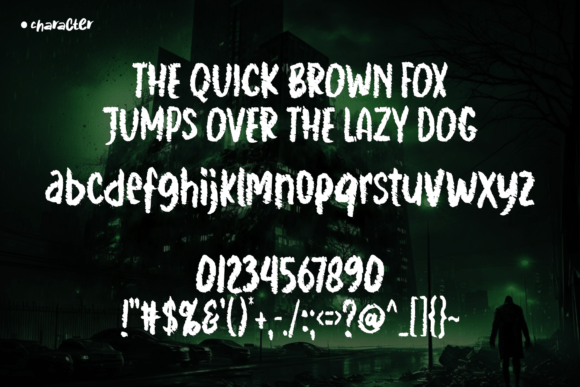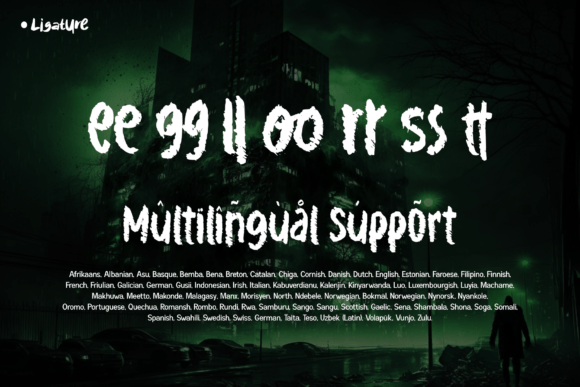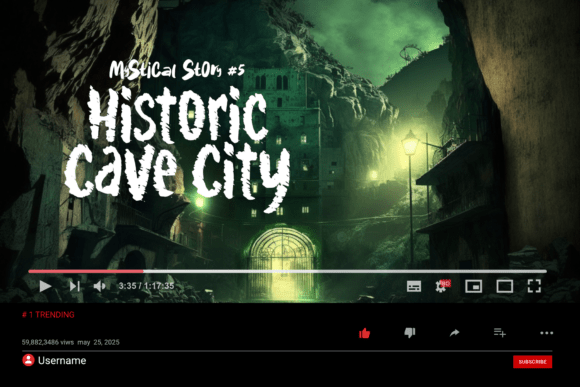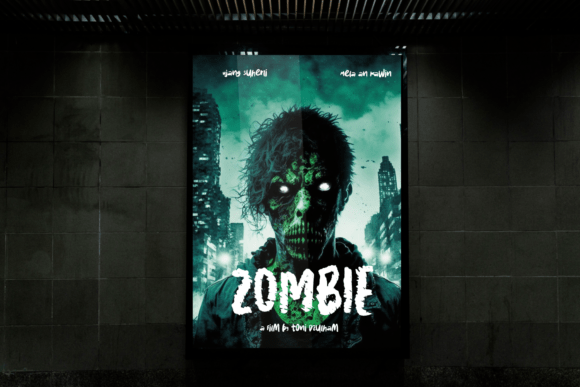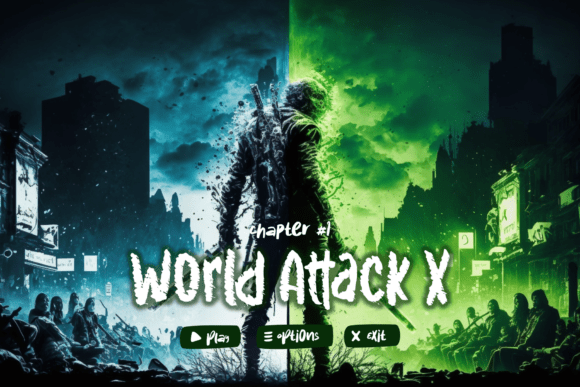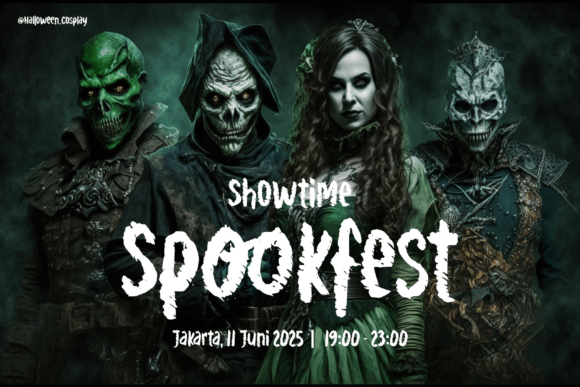
Step into the Abyss of Fear with the Crazy Joker Font
Have you ever sat in front of a blank page, staring blankly at your computer screen, waiting for inspiration to strike? That’s where the magic happens. For designers, finding the perfect font to capture the essence of a project can be a daunting task, but what if I told you there’s a font that can transport your audience into a world of fear and madness?
Enter the Crazy Joker Font, a hauntingly beautiful typeface that embodies the essence of horror. With its hand-drawn, irregular lines and chaotic details, this font is perfect for designers who want to create a striking horror atmosphere. Whether you’re working on a film poster, book cover, or video game title, the Crazy Joker Font is the perfect choice to send shivers down your audience’s spines.
Its versatility and ability to create tension and confusion make it a valuable asset for any designer looking to create an unforgettable experience for their viewers.
Crazy Joker Font Key Features
- Font Family: Crazy Joker Font is a display font designed to add a playful and quirky touch to various designs.
- Unique Characteristics: Crazy Joker Font features a unique, hand-drawn design with bold lines and playful flourishes, adding a touch of whimsy to any design.
Crazy Joker Font Review
I must say, the Crazy Joker Font has a unique charm to it. The designer’s use of bold lines and irregular shapes ✨ creates a playful and whimsical feel that’s perfect for projects that need a touch of humor or quirkiness. The font’s irregularities add to its character, making it stand out from more traditional font styles.
The font’s versatility is also a major plus ✨. It can be used for a wide range of applications, from headings and titles to body text, and even for creating custom graphics and illustrations. The font’s flexibility makes it a great choice for designers who need a font that can adapt to different design styles and themes.
Limitsations:
- ⚠️ Limited legibility: In some cases, the font’s irregularities can make it difficult to read, especially at smaller font sizes.
- ⚠️ Limited consistency: The font’s unique shape and style can make it challenging to maintain consistency throughout a design project.
Overall, I think the Crazy Joker Font is a great addition to any designer’s toolkit. While it may have some limitations, its unique charm and versatility make it a valuable asset for projects that need a touch of creativity and whimsy.
Crazy Joker Font is ideal for:
- Playful and whimsical designs
- Eye-catching headlines and titles
- Children’s book illustrations and designs
- Party and event invitations